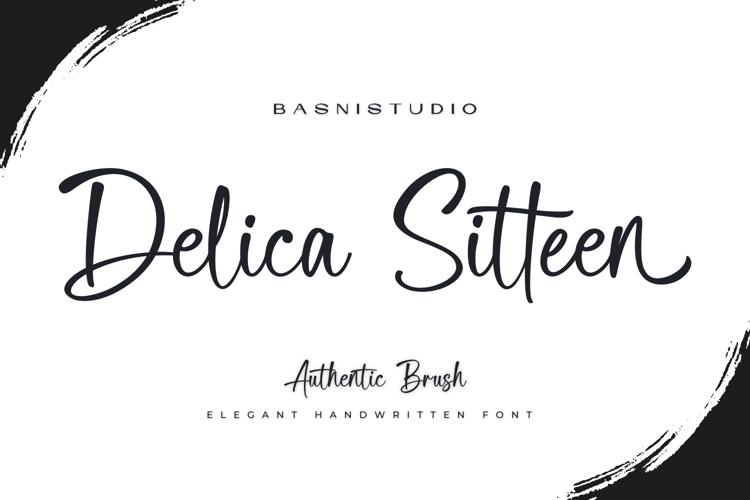
Delica Sitteen Font
Handwritting Font Created with real pen strokes for a natural look and casual touch to everything from branding and social media to invitations and packaging.